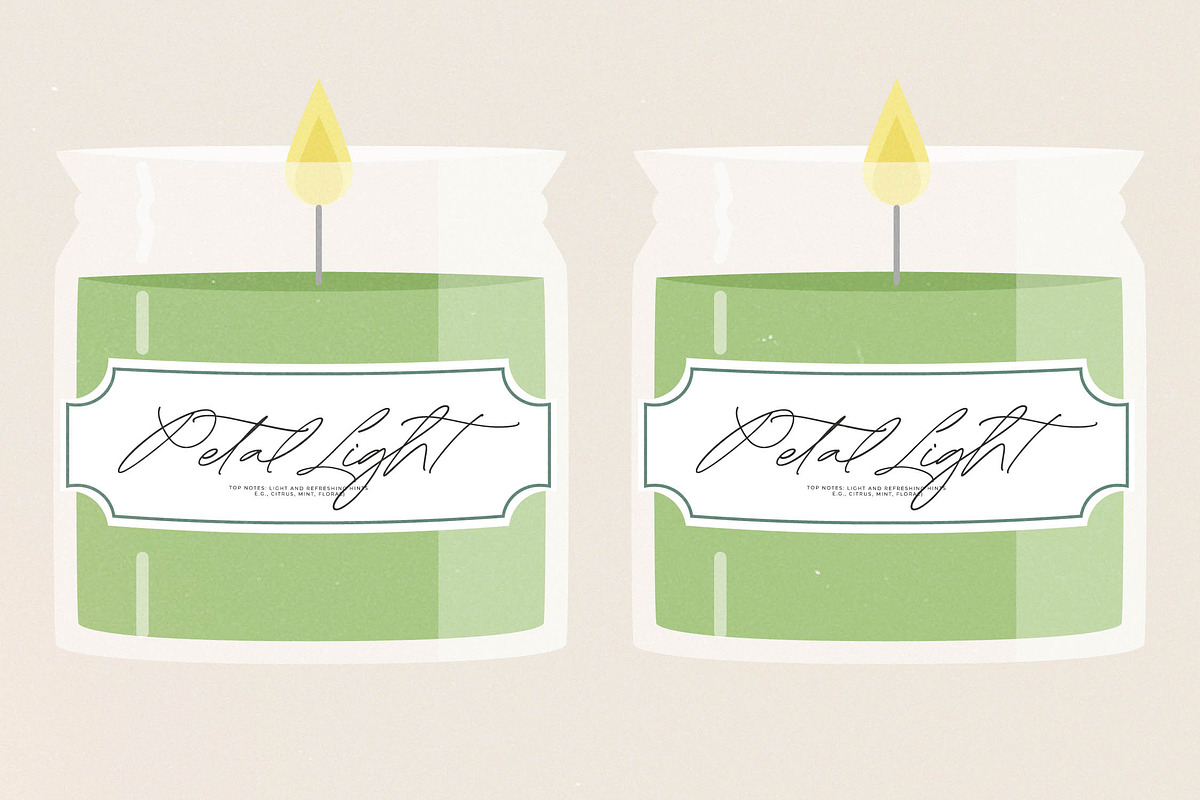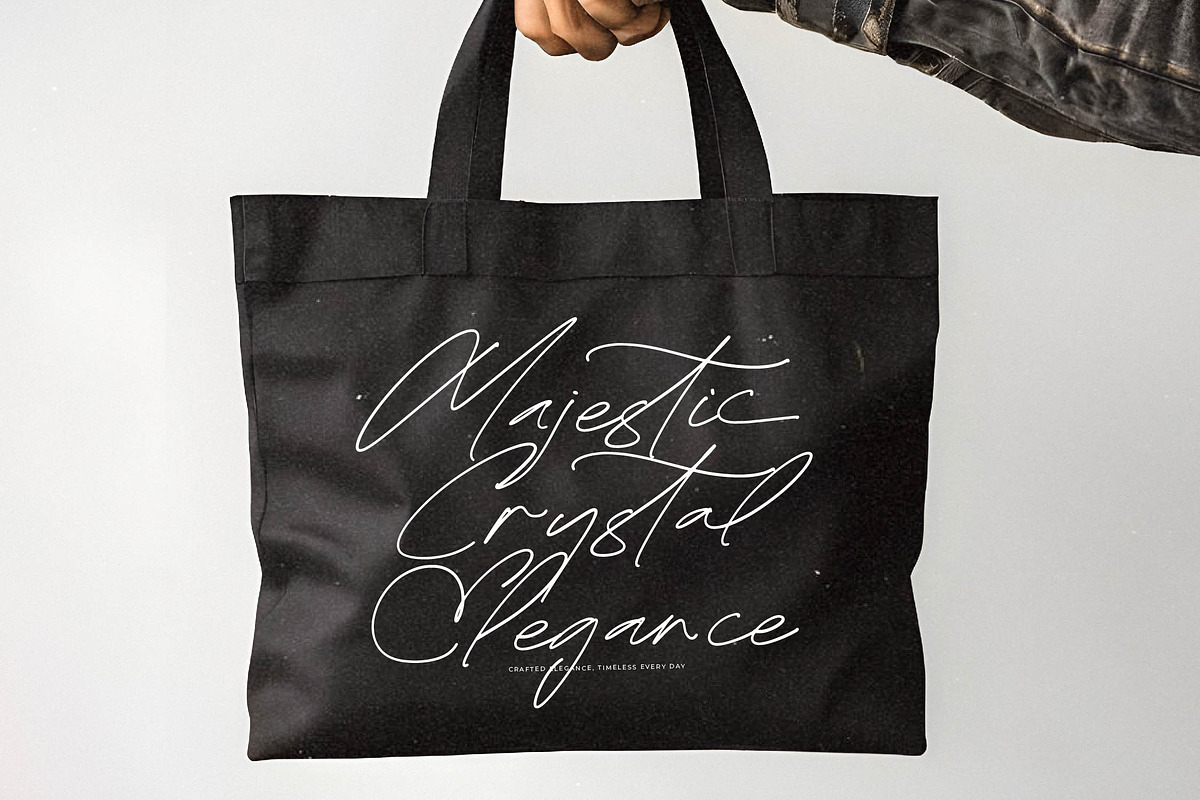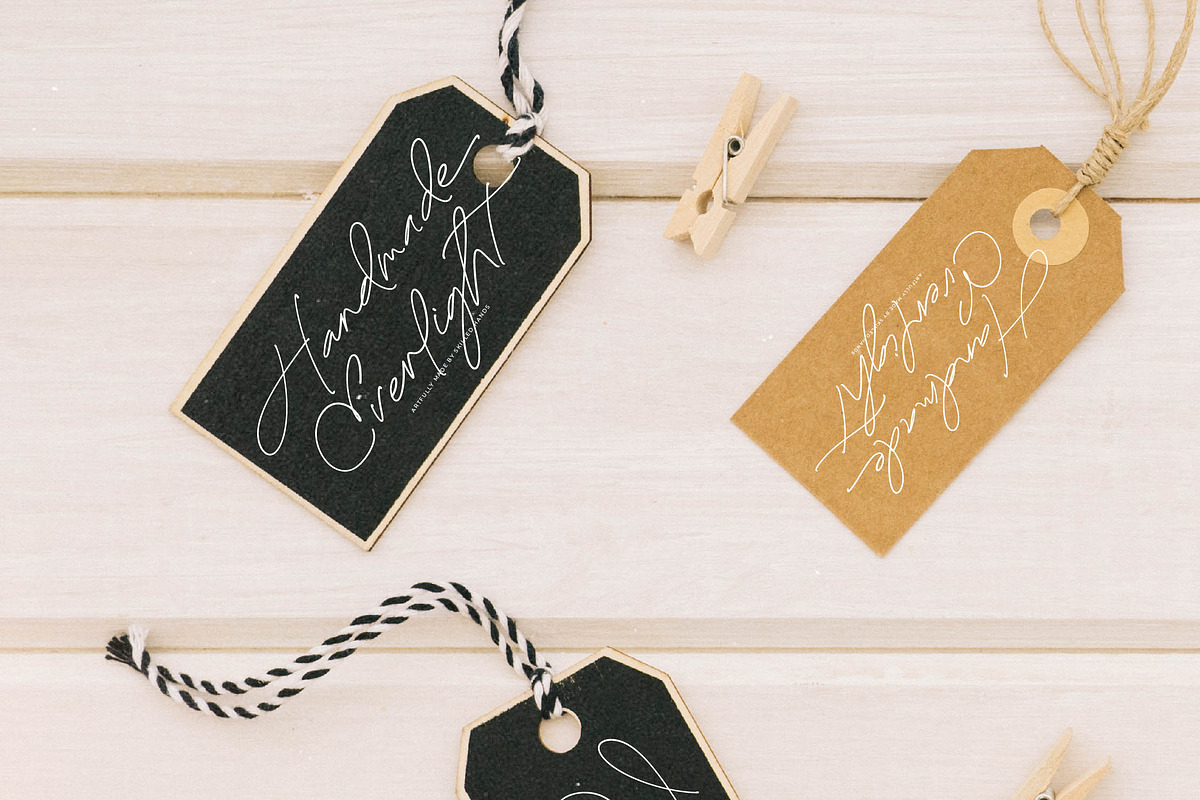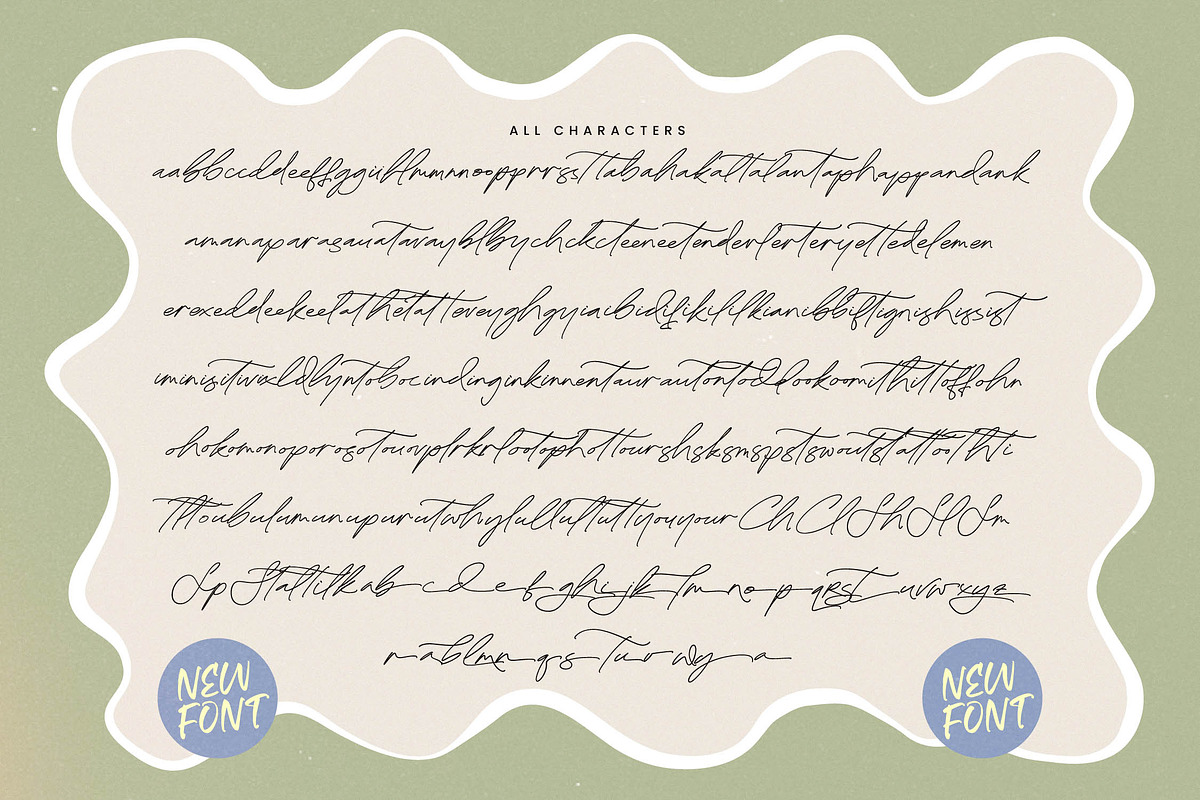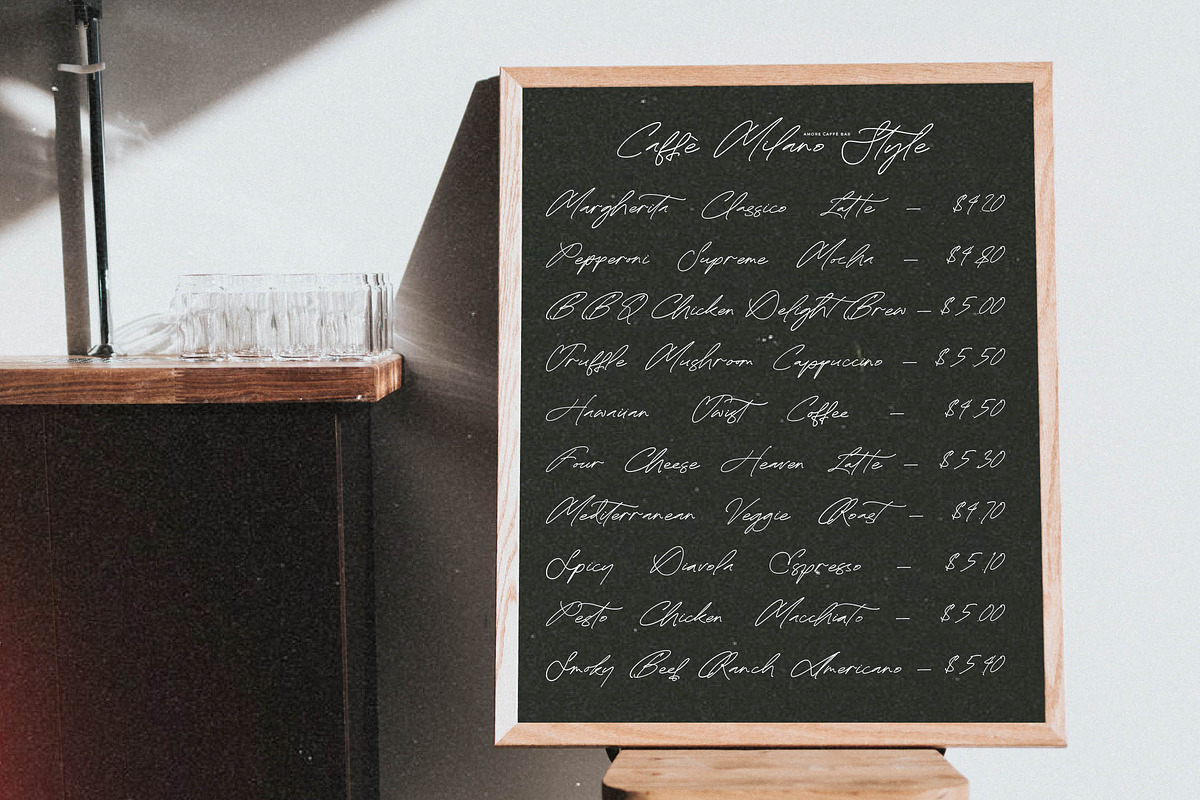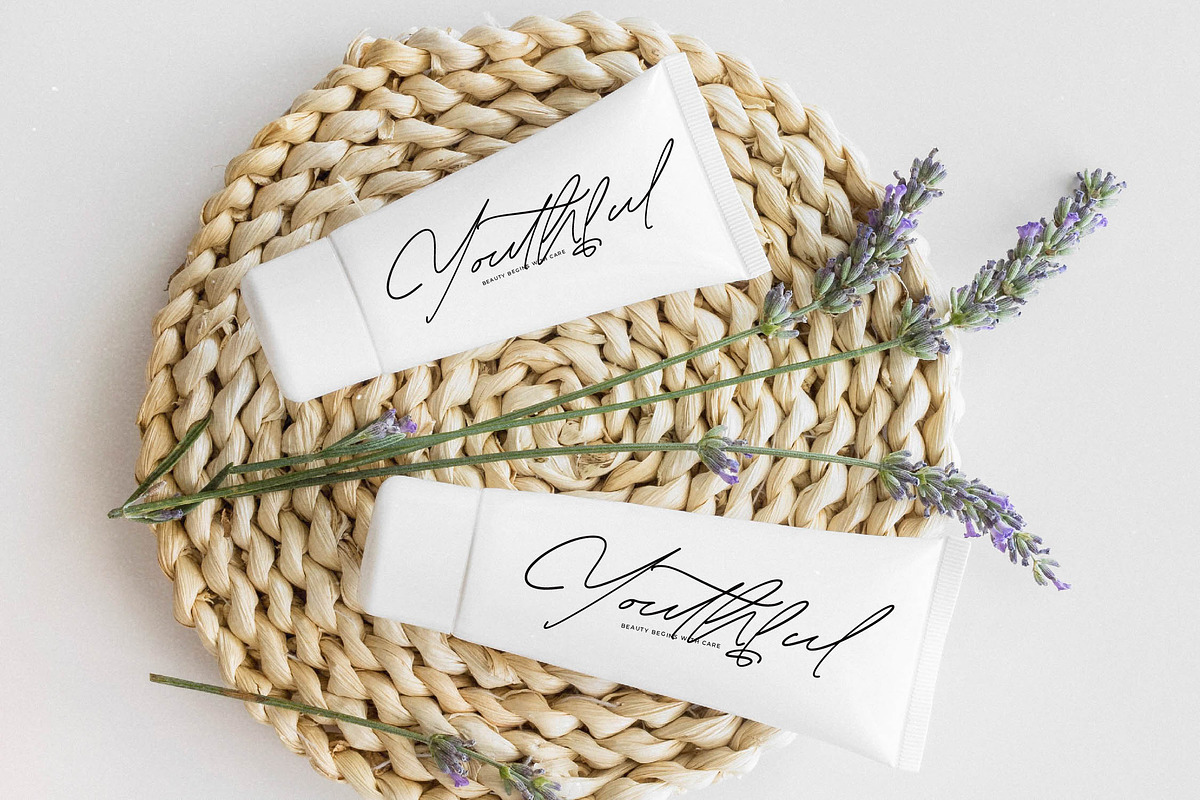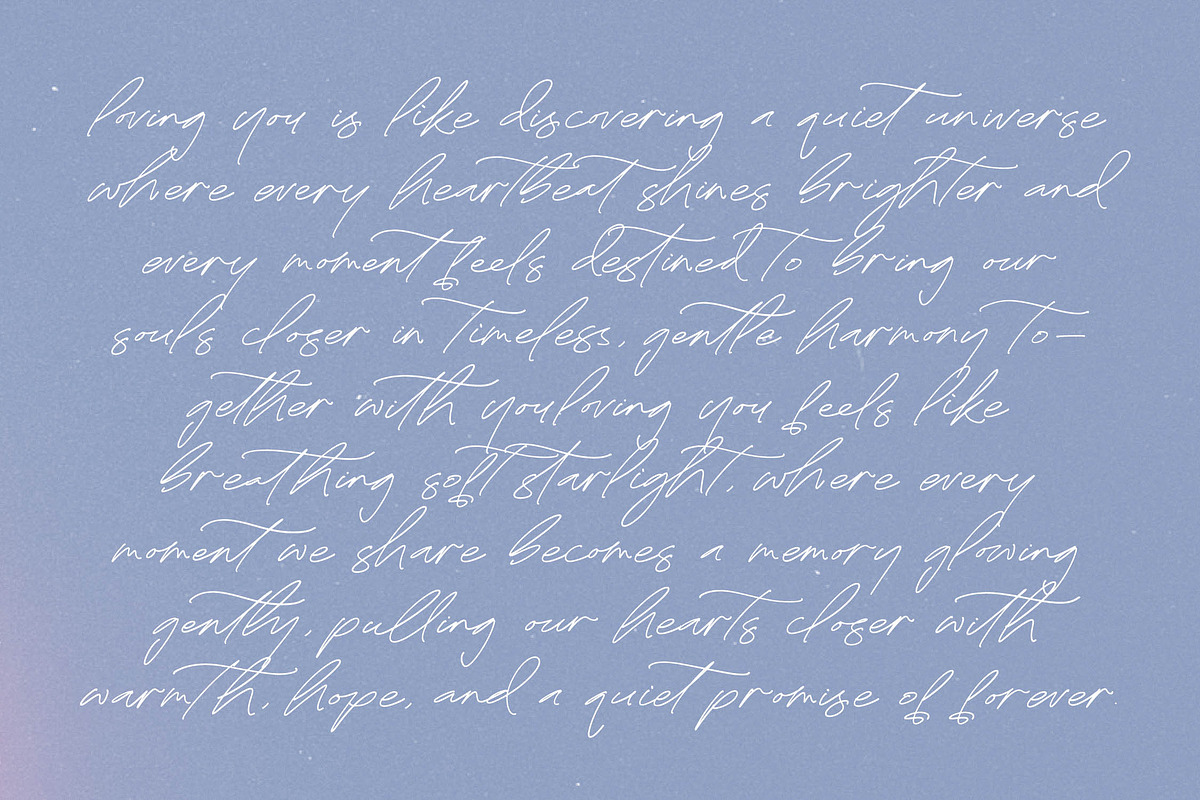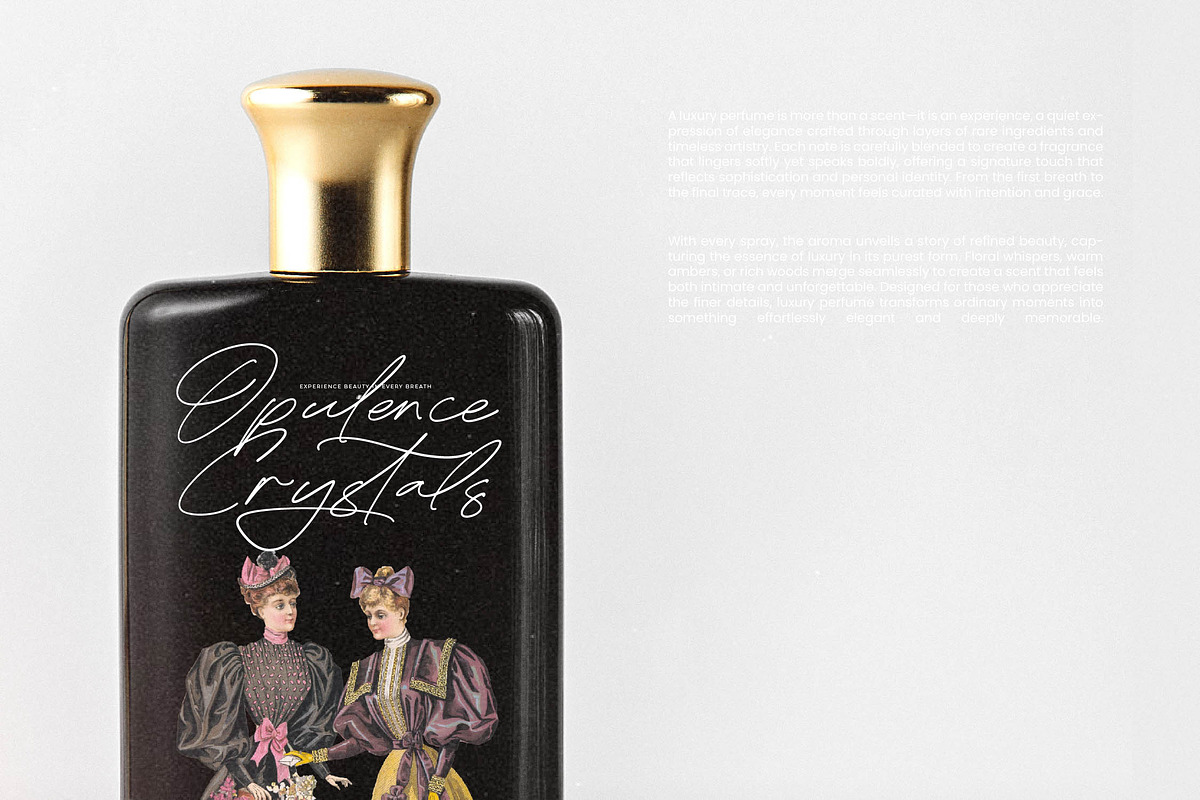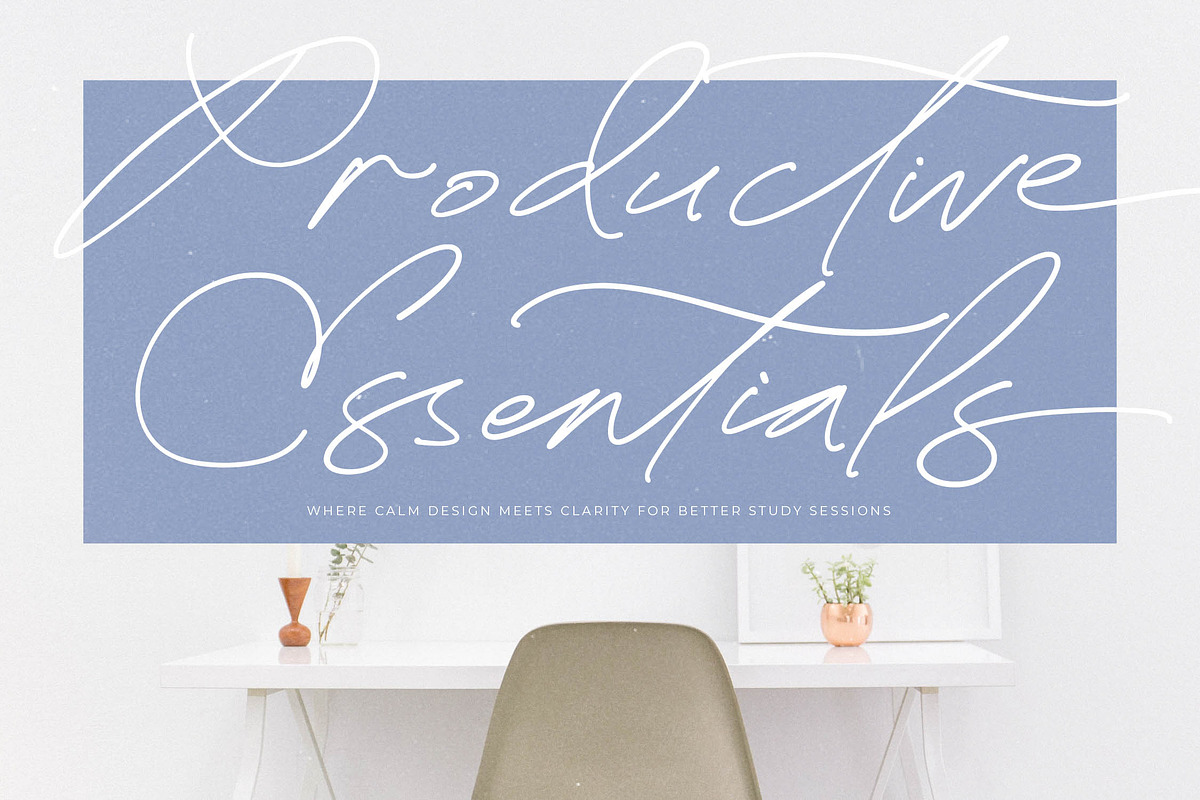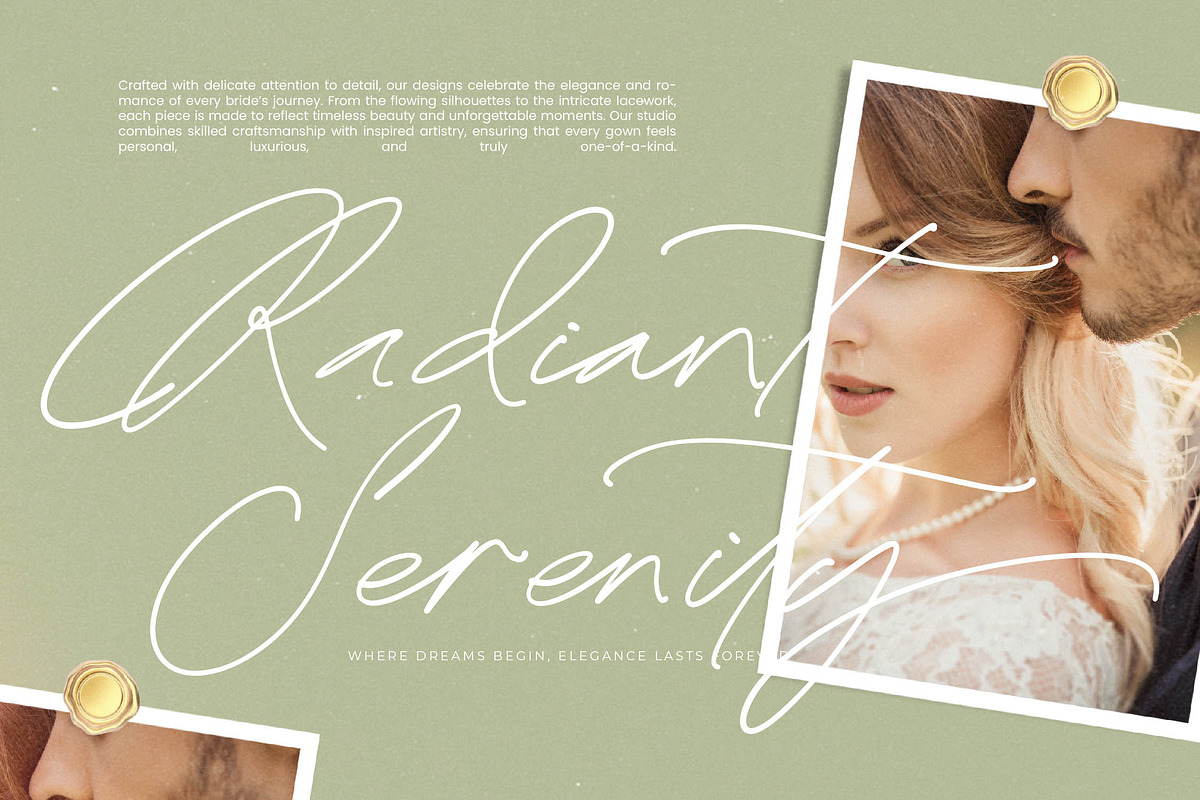
Midnight Classic Elegant Script Font
Midnight Classic - Elegant Script Font , Midnight Classic is an elegant signature script font crafted with refined thin strokes and natural handwriting flow. Featuring 159 ligatures and 40 alternates, it offers exceptional flexibility for designers seeking a high-end, personalized look. Perfect for branding, luxury packaging, wedding stationery, editorial designs, social media, and creative logos, Midnight Classic blends timeless beauty with modern sophistication. Its smooth curves and authentic handwritten rhythm elevate any project with effortless elegance.